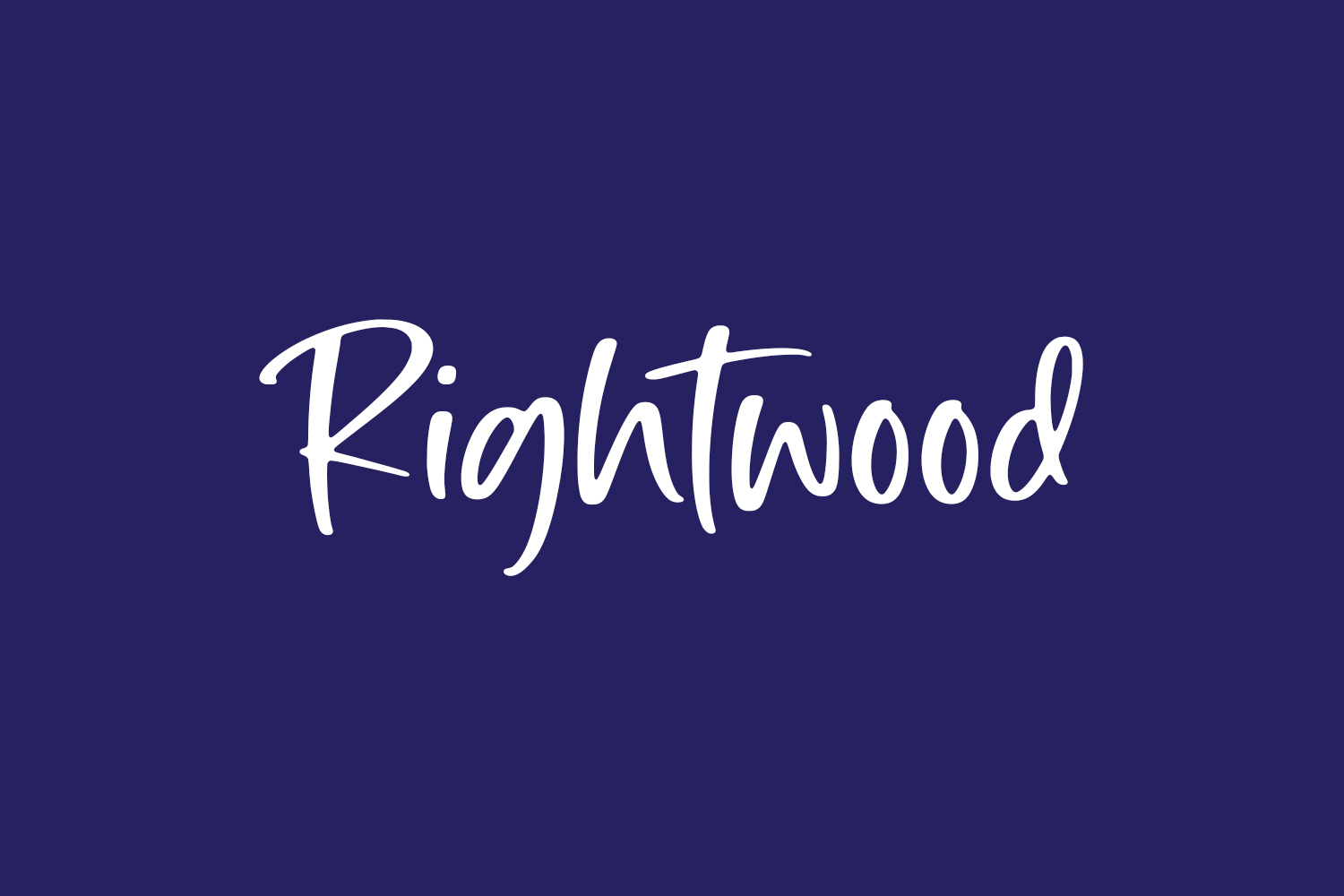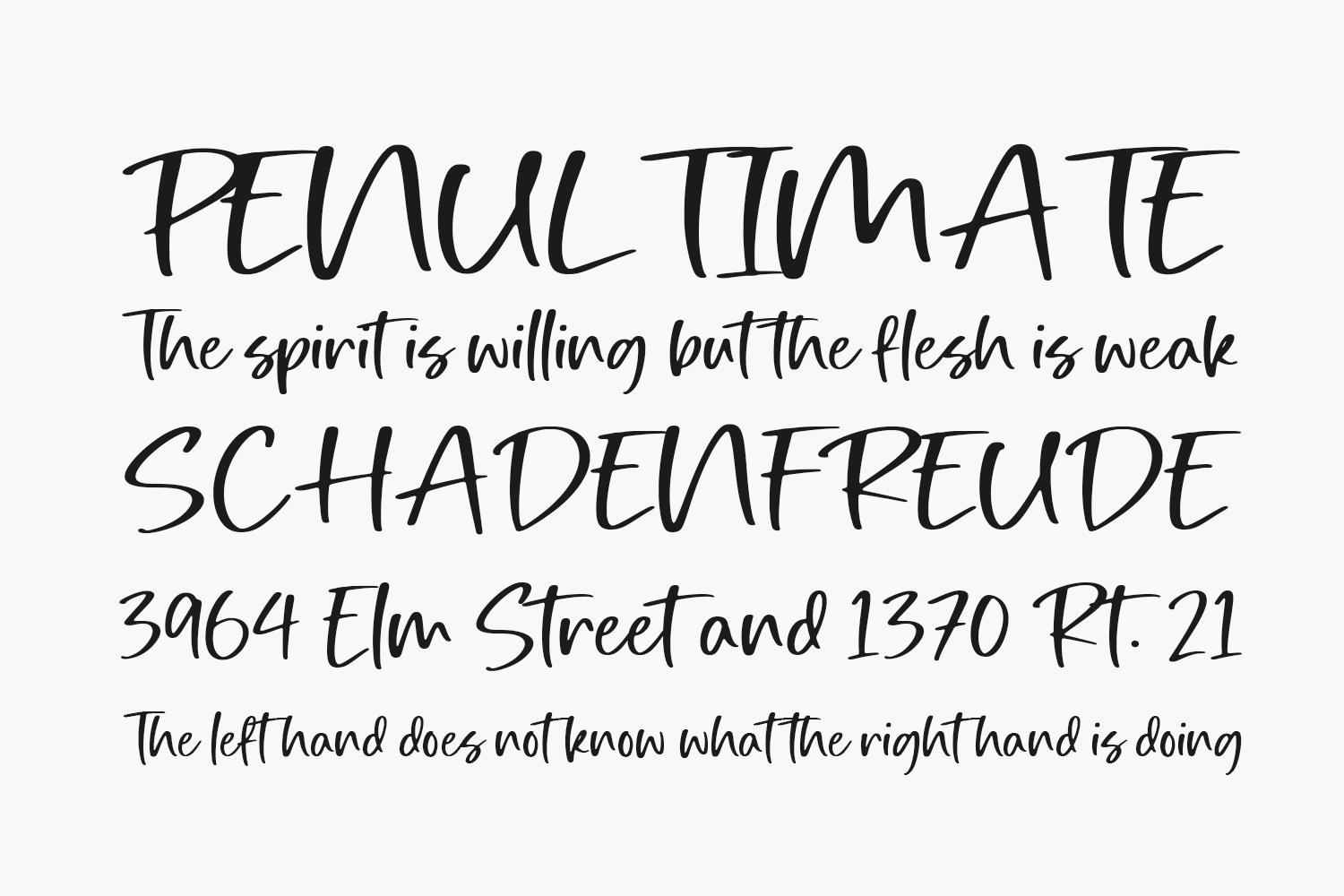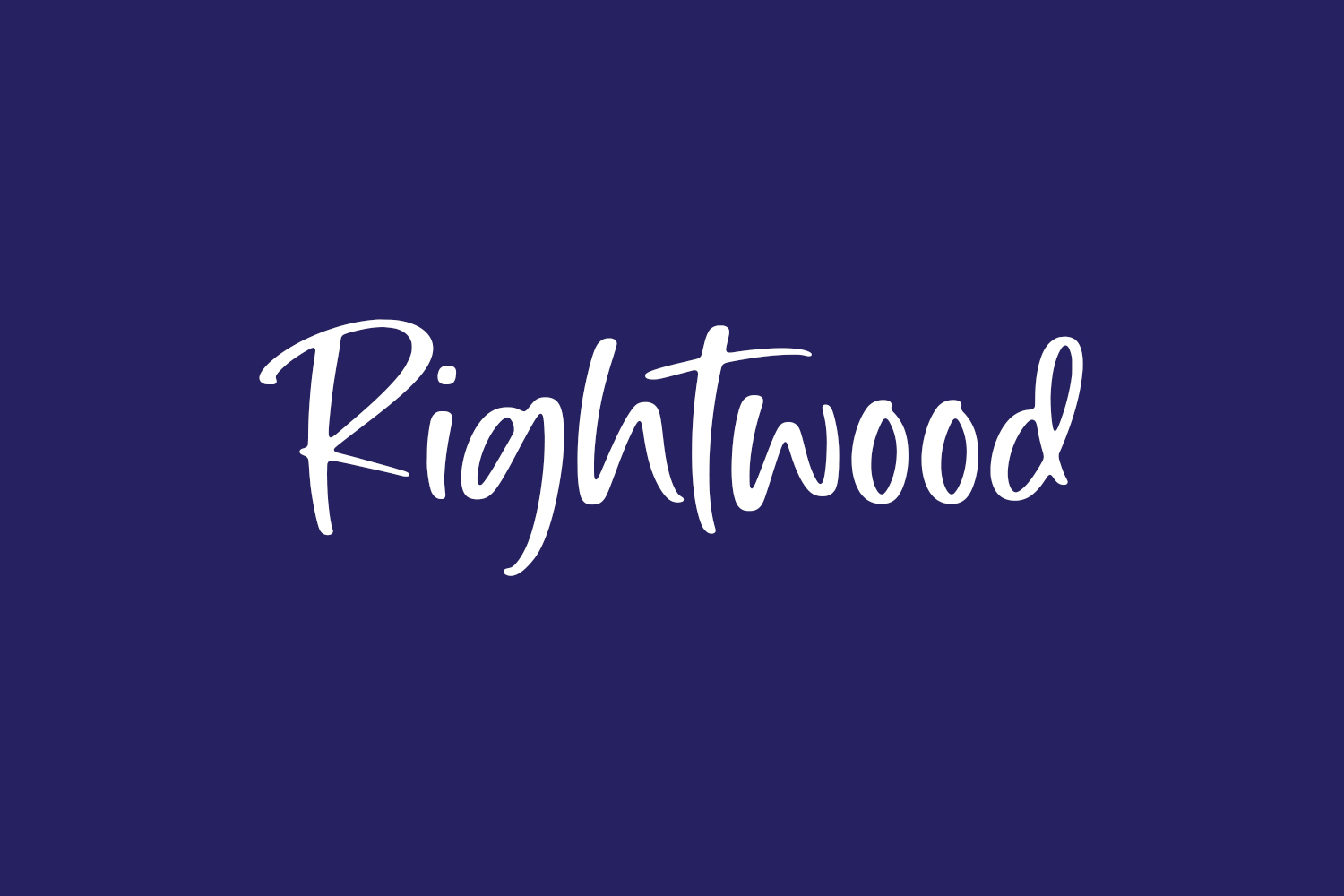
Introducing Rightwood Free Font, a sophisticated modern calligraphic font that exudes grace and elegance. Perfect for branding projects, invitations, web graphics, cards, and beyond, Rightwood adds a touch of class to every design endeavor. Download the font for free if you need it for personal use or purchase the full version for commercial use.
Designed by Timur Type